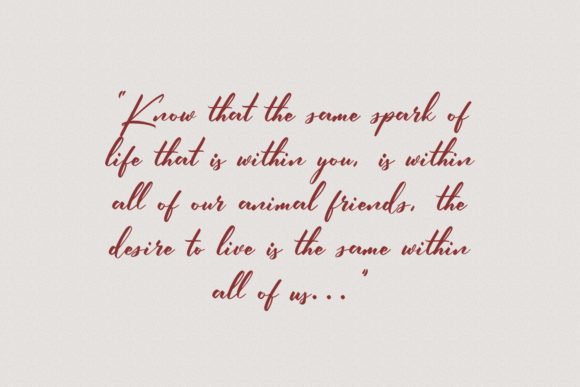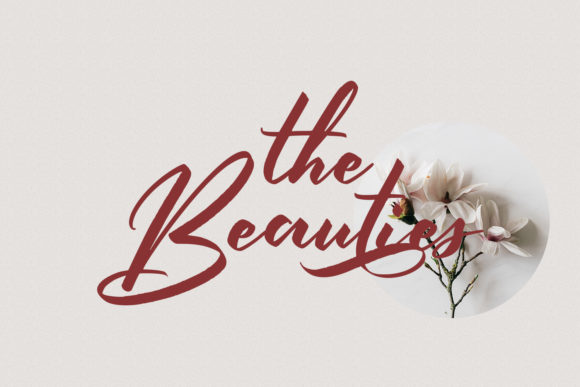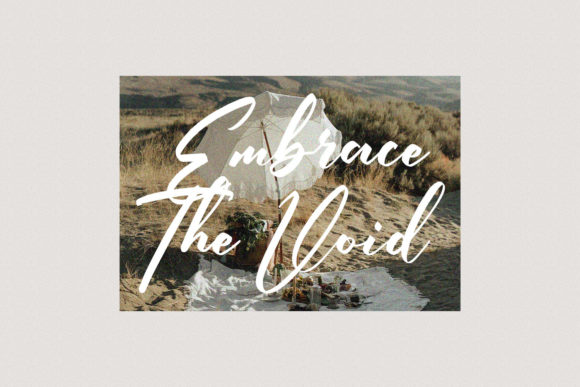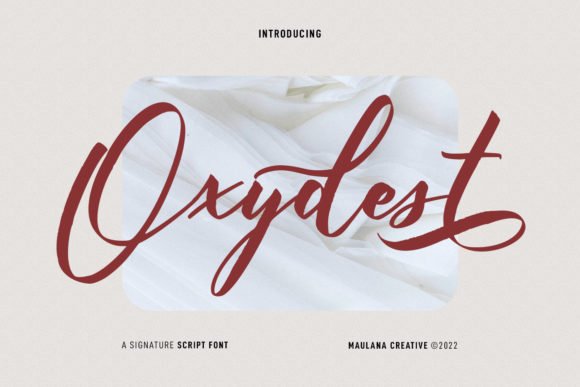
Introduction to Oxydest Font
Oxydest is a fancy script font.
It features high contrast strokes, fun characters, ligatures and alternates Add this font to your most creative ideas, and notice how it makes them stand out.
Key Features of Oxydest Font
Why Choose Oxydest Font?
Oxydest Font offers exceptional quality and versatility, making it a valuable addition to your design toolkit. Whether you’re creating for personal projects or commercial use, Oxydest Font delivers professional results.